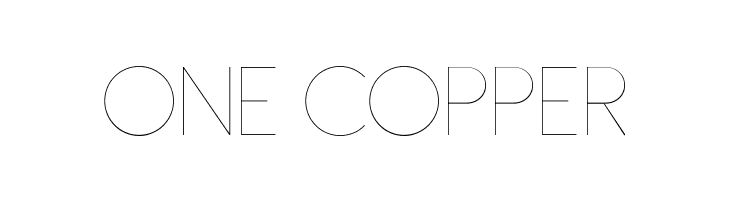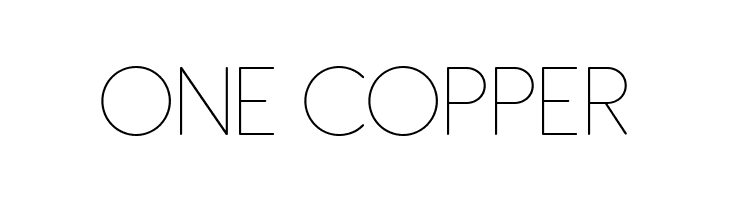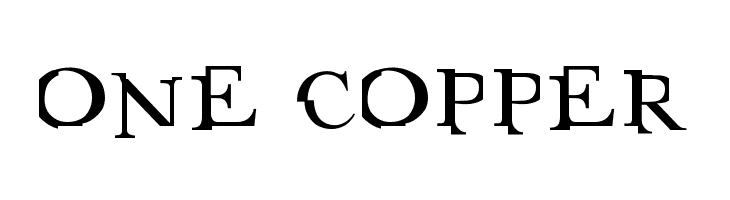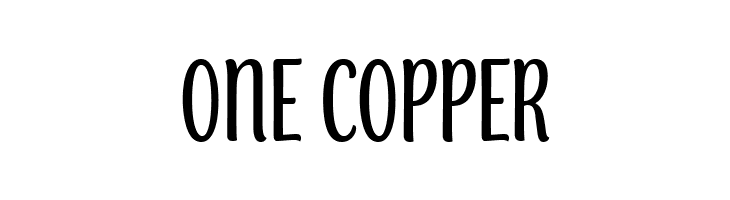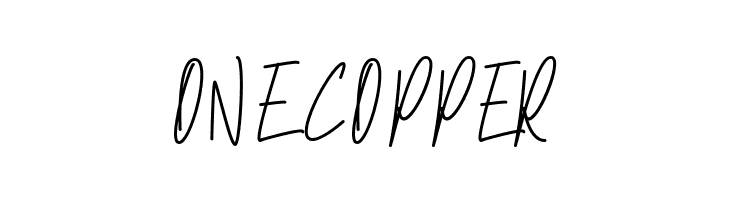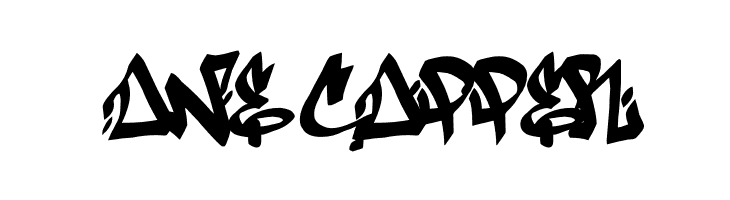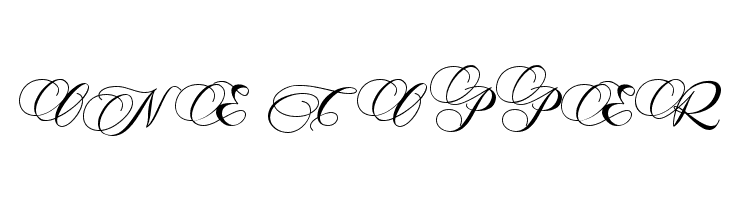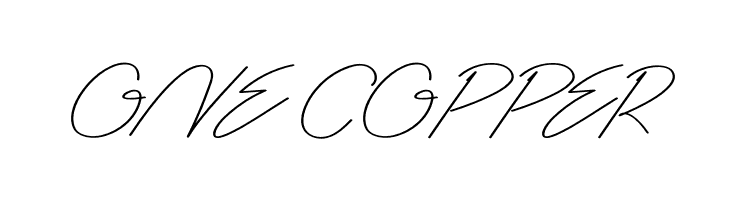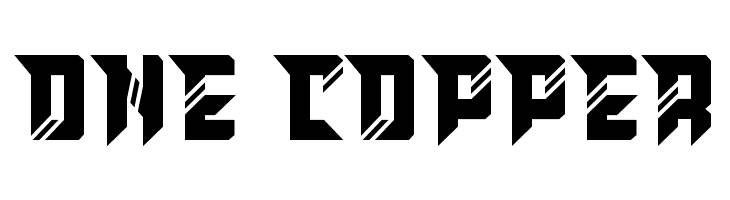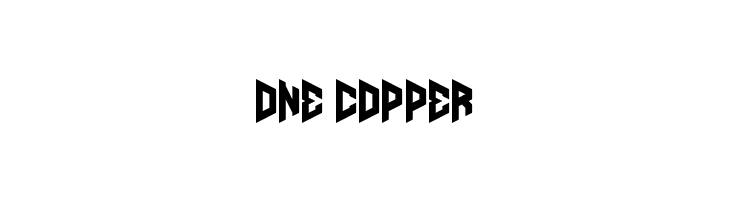
A bold, rounded font with a friendly and modern appearance.
A bold, playful font with dynamic, uneven strokes and a whimsical style.
A bold, hand-drawn font with a graffiti-like, edgy style.
A refined and elegant cursive script font with flowing, connected letters.
A playful, rounded font with smooth curves and a friendly appearance.
A bold, angular font with a futuristic and edgy design.
A bold, high-contrast script font with elegant, flowing letterforms.
A futuristic, geometric font with clean lines and a modern aesthetic.
A bold, graffiti-inspired font with dynamic, angular characters.
A bold, graffiti-inspired font with sharp, angular lines and an urban aesthetic.
A sophisticated, elegant handwritten font with fluid, graceful strokes.
A bold, brush-style font with a textured, hand-painted appearance.
An elegant script font with intricate swirls and flourishes.
A bold, hand-drawn font with playful and artistic characteristics.
An ornate and elegant font with decorative swirls and flourishes.
An ornate serif font with a shadow effect, offering a classic and elegant style.
A bold, angular font with dynamic strokes and modern elegance.
An artistic, hand-drawn font with angular, whimsical characters.
A modern, handwritten font with a casual and dynamic style.
A bold, angular serif font with a modern, edgy design.
A modern sans-serif font with rounded edges and uniform strokes.
A bold, rounded font with a playful and friendly appearance.
A modern, geometric font with thin strokes and balanced spacing.
A modern, rounded sans-serif font with a clean and approachable style.
A modern, geometric font with smooth, rounded edges and balanced spacing.
A bold, rounded sans-serif font with smooth curves and a modern look.
A modern, rounded sans-serif font with a friendly and approachable style.
A bold, rounded typeface with smooth curves and uniform strokes.
A bold, rounded font with smooth curves and a modern, friendly style.
A clean, modern font with uniform strokes and minimalist design.
An ultra-thin, geometric font with a modern and minimalist design.
A clean, modern font with smooth, rounded edges and uniform stroke width.
A modern, rounded font with uniform stroke width and clean lines.
A sleek, modern font with thin, geometric lines and excellent legibility.